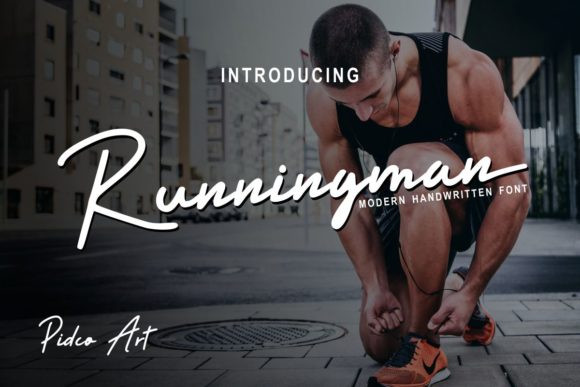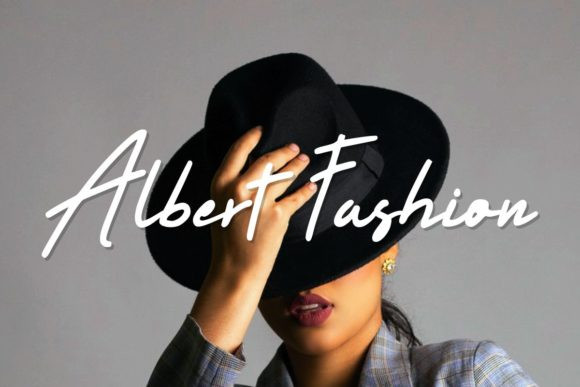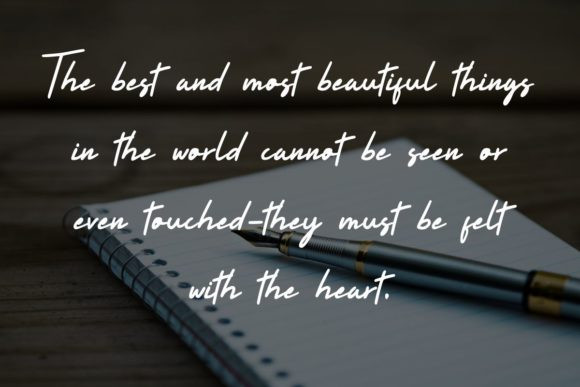
Runningman Font
Runningman is a modern handwritten font. This font is the perfect fit for all of your logos, branding, social media, and crafty DIY projects. Add it confidently to your creative ideas and you will love the results.